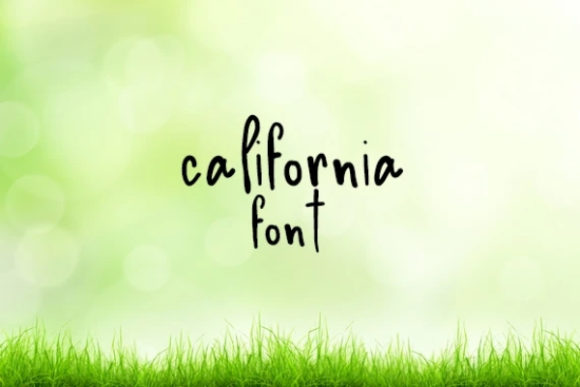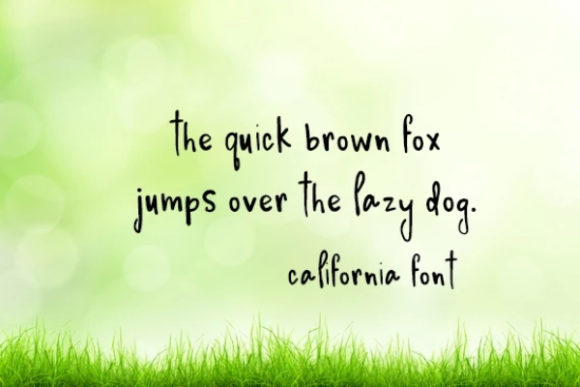
California Font
About California Font
California is a stylish calligraphy font. It features a varying baseline, has smooth lines, is modern and looks stunning.
It can be used for various purposes such as headings, weddings, invitations, signatures, logos, branding, t-shirts, letterheads, and much more!